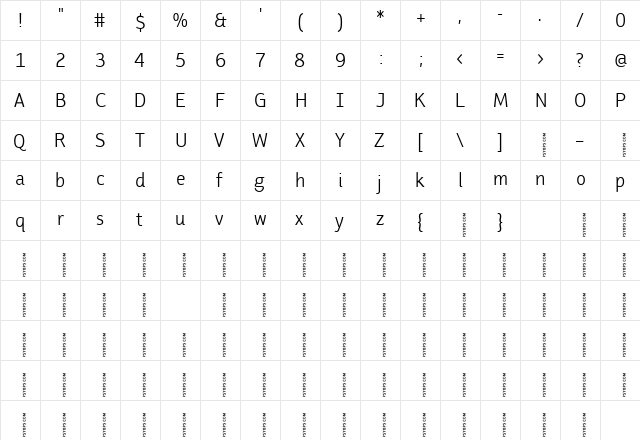
FaceplateSansAGaugeLE Regular Font Preview
FaceplateSansAGaugeLE Regular
Design Context for FaceplateSansAGaugeLE Typeface
FaceplateSansAGaugeLE is a composed and adaptable typeface that performs quietly and consistently across a wide range of design contexts.